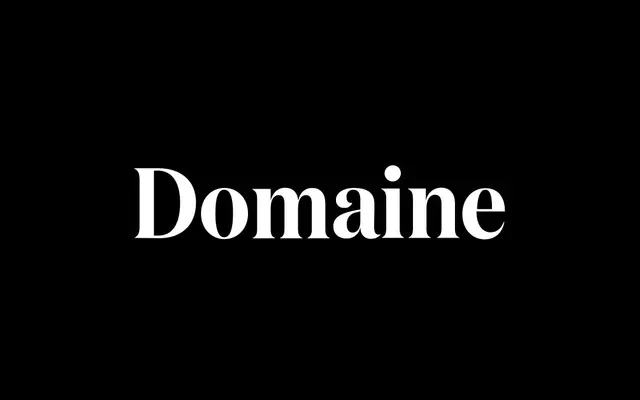
Domaine Display Narrow
Klim Type Foundry · Kris Sowersby · 2013
A narrow display serif sitting between Domaine Display and Domaine Display Condensed, made for tight headlines that keep their elegance.
A narrow display serif by Kris Sowersby, the middle width within the Domaine Display system, with bracketed triangular serifs, hooked terminals and italics inspired by Deberny & Peignot's Labeurs Ordinaires Série. Twelve styles run from Regular to Black with matching italics, more economical than Domaine Display itself but less compressed than Domaine Display Condensed. A natural fit for fashion, wine and editorial mastheads where the columns are tight but the brand still wants air.
Klim classifies it as Modern: Transitional/Latin; the narrow display cut between the standard Display and the Condensed, sharing Domaine's triangular serifs, hooked terminals and Deberny & Peignot italics.